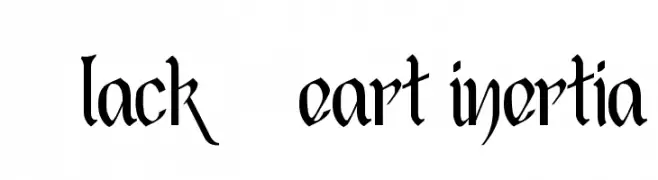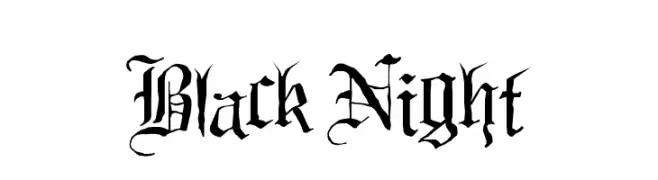
A bold, playful font with chunky, rounded characters.
( Font by Inaki Marquinez )
A bold, classic serif font with strong, elegant letterforms.
( Fonts by www.Fontfabric.com )
A bold, geometric font with sharp angles and a faceted design.
( Fonts by www.fontdiner.com )
A gothic, medieval-style font with ornate, sharp serifs and decorative flourishes.
( Fonts by Paul Lloyd )
An ornate and intricate Blackletter-style font with high contrast and decorative flourishes.
( Fonts by Levi Halmos )
A bold, angular serif font with a modern and vintage blend, ideal for dramatic headlines.